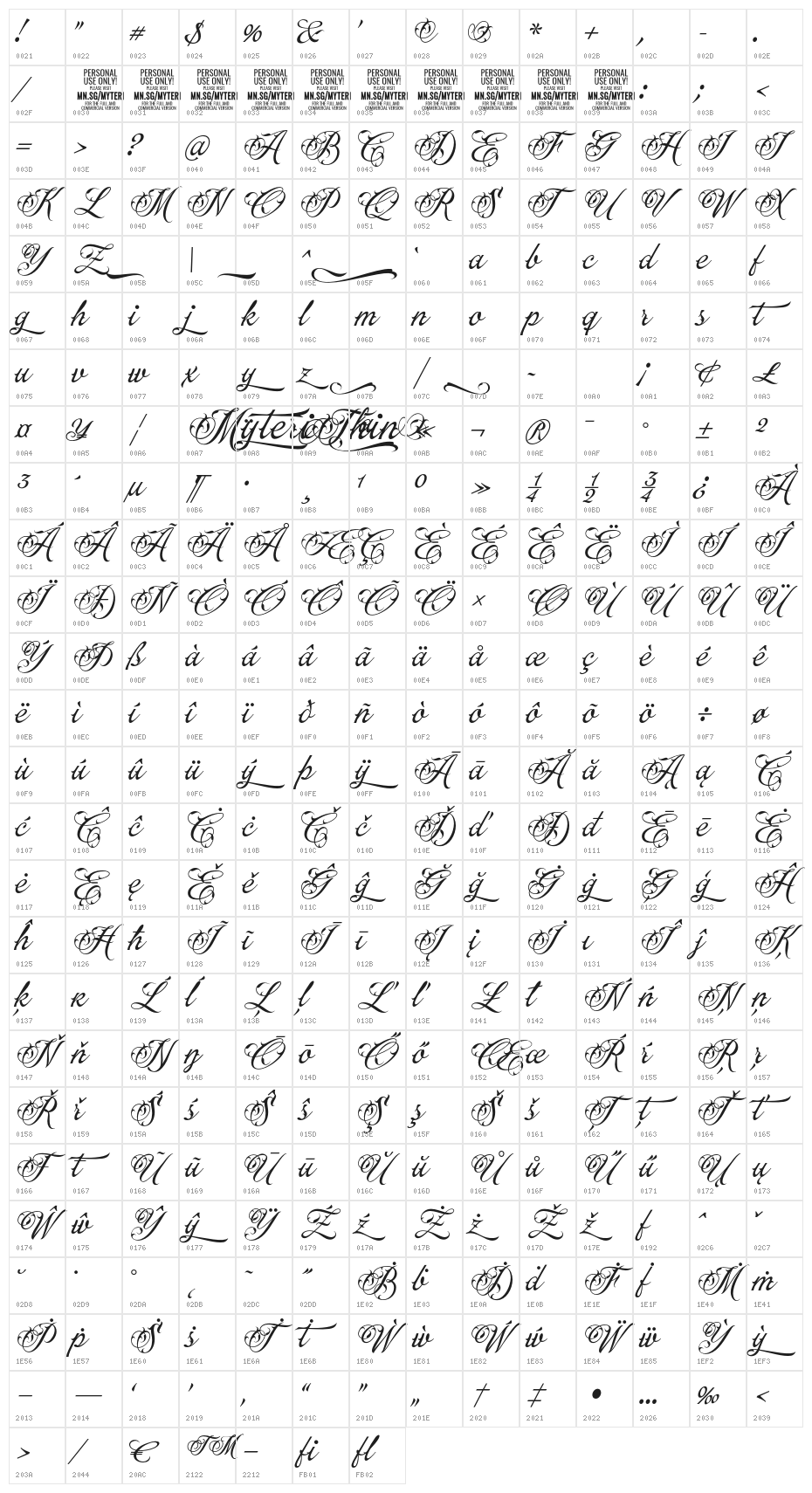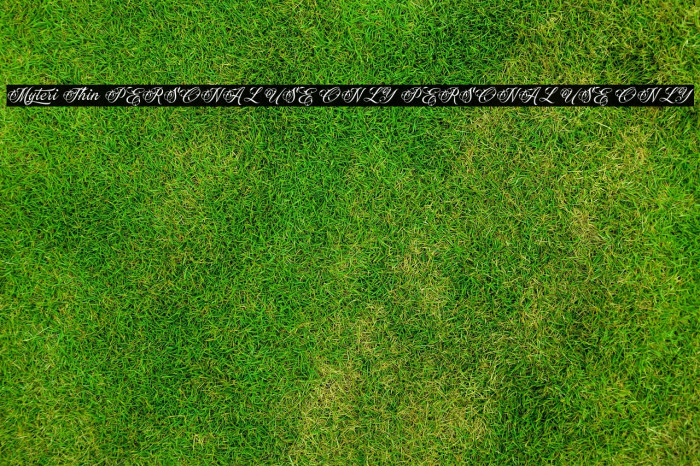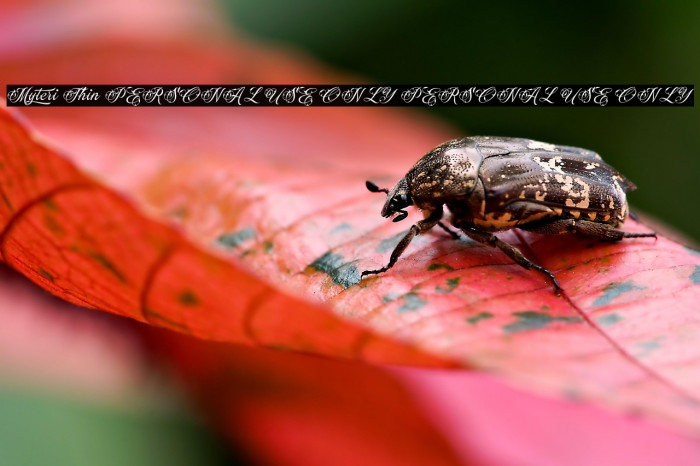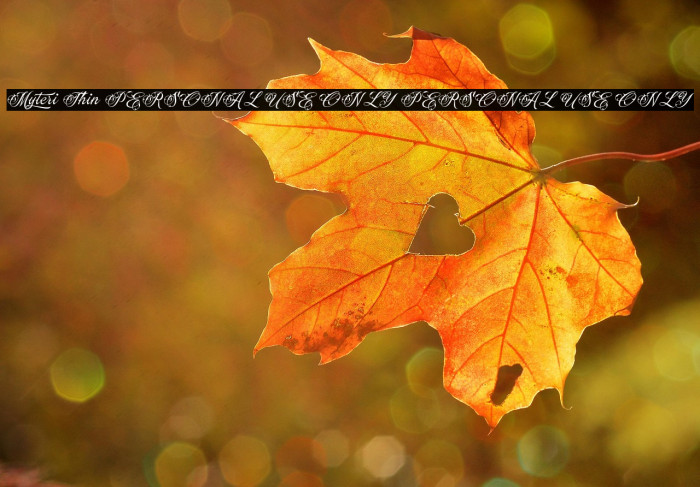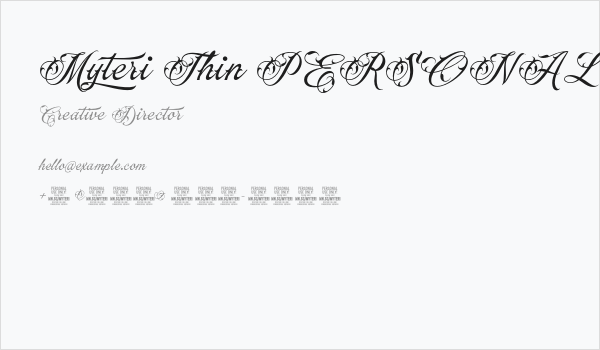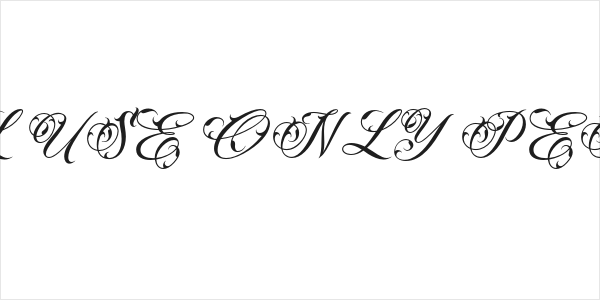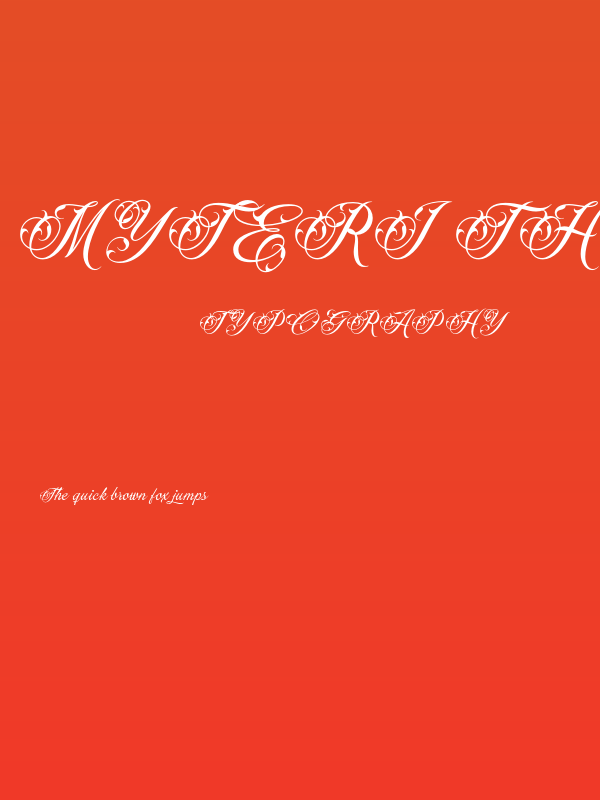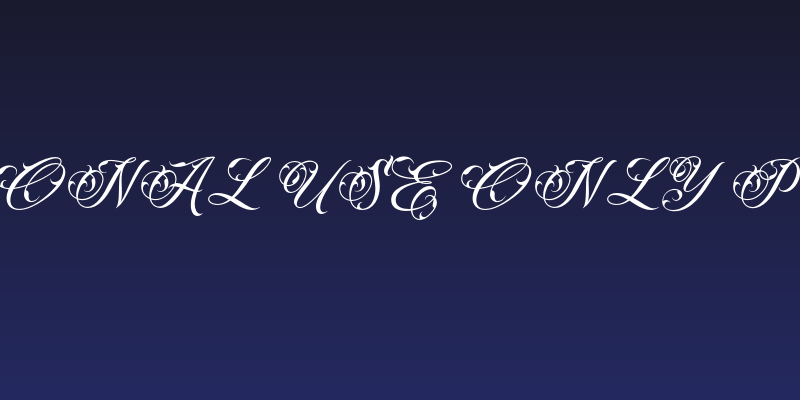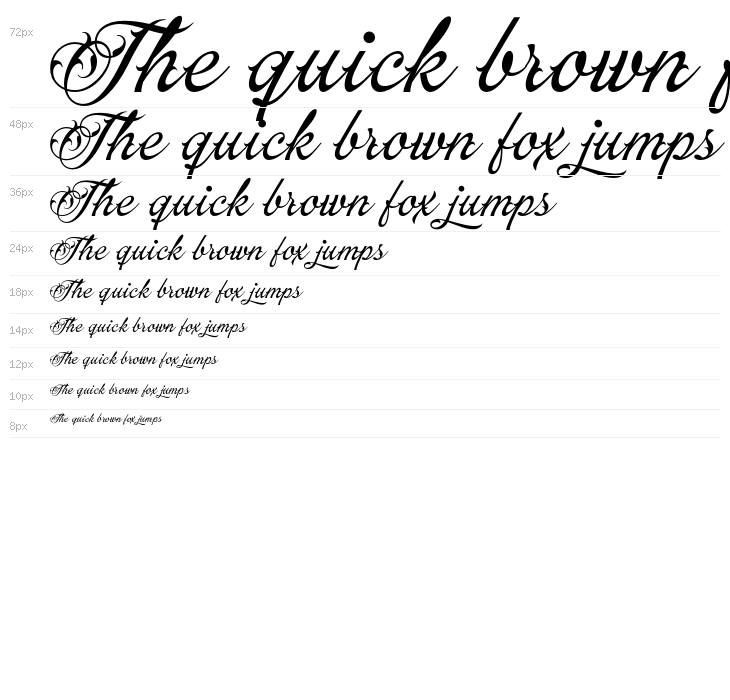
Myteri Thin PERSONAL USE ONLY Font
Myteri Thin PERSONAL USE ONLY Description
This font exhibits an elegant and ornate script style, characterized by its intricate swirls and flourishes. The uppercase letters are particularly decorative, with elaborate loops and extensions that give a sense of sophistication and artistry. The lowercase letters maintain a flowing, cursive style that complements the uppercase, creating a harmonious balance. The numbers and special characters are designed with similar attention to detail, ensuring consistency throughout the typeface. This font is ideal for projects that require a touch of elegance and refinement.
| Use Case | Logos, Invitations, Decorative Headlines |
| Proposed Projects | Ideal for wedding invitations, luxury branding, elegant logos, and decorative headlines. |